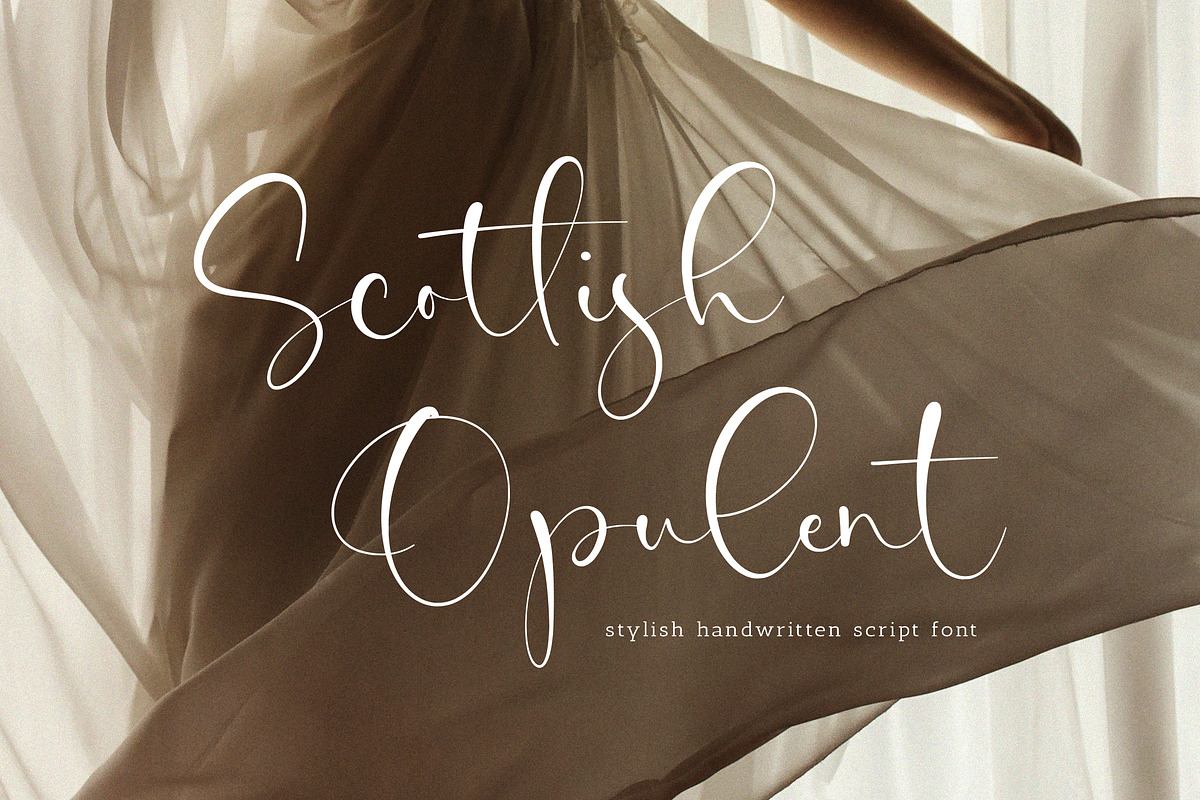
Scottish Opulent - Handwritten Font Free Download
Please note, to use this font for commercial purposes, you must purchase the full version. Scottish Opulent is an elegant and luxurious handwritten font that combines refined strokes with a personal, artistic touch. Perfect for wedding invitations, logos, branding, and high-end creative projects, this font adds a sophisticated and graceful feel to your designs. Whether you're designing for a luxury brand, a formal event, or a chic product, Scottish Opulent brings beauty and elegance to your work. Test it out and enjoy free download access for personal use. Experience the refined, handwritten beauty of Scottish Opulent - Handwritten Font Free Download before purchasing the commercial license. Add a timeless, opulent touch to your designs with Scottish Opulent.